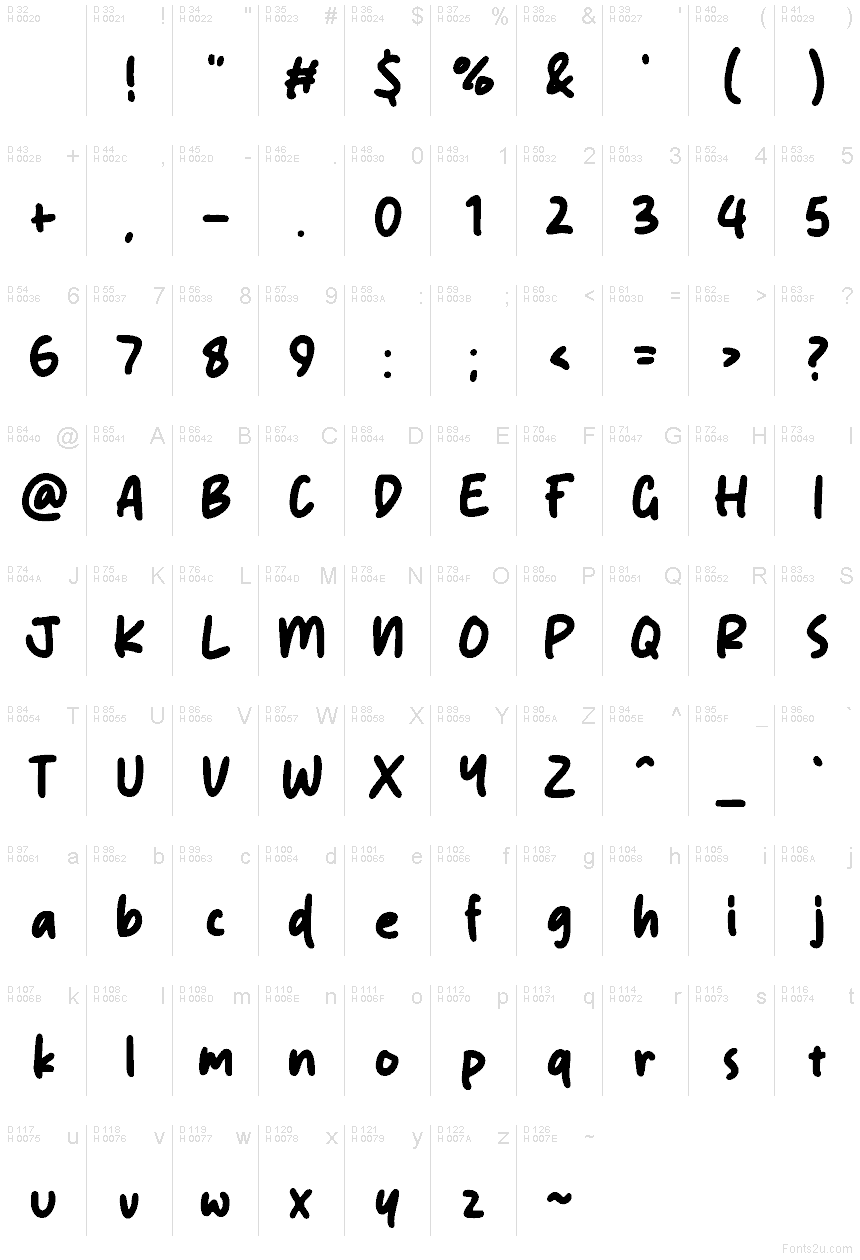
Casual Rush
Casual Rush font, designed by Origin Type, is a bold handwritten free font with a casual and approachable vibe. It combines a modern aesthetic with an informal touch for that warm and inviting feel.